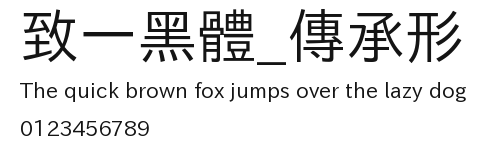
致一黑體_傳承形 Preview
About 致一黑體_傳承形.ttf
致一黑體_傳承形.ttf is a modern, elegant sans-serif font designed for ultimate readability and visual harmony. Perfect for branding, headlines, web design, and print materials.